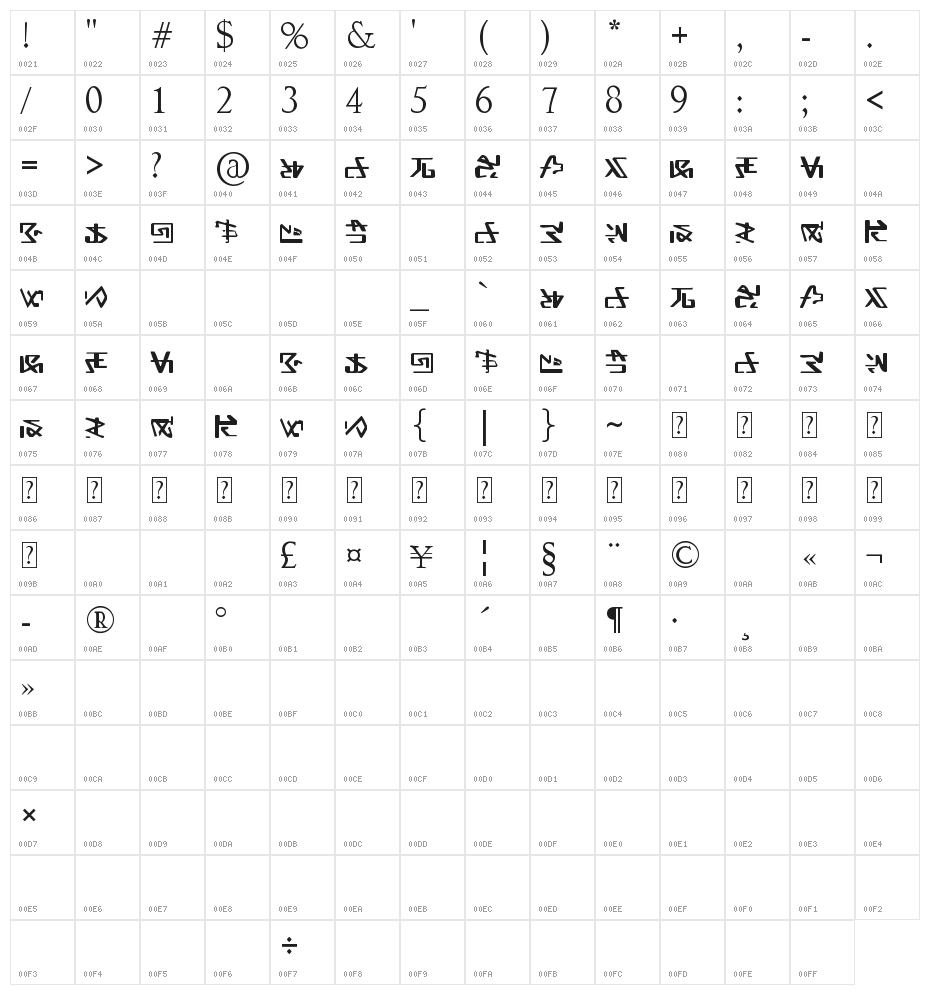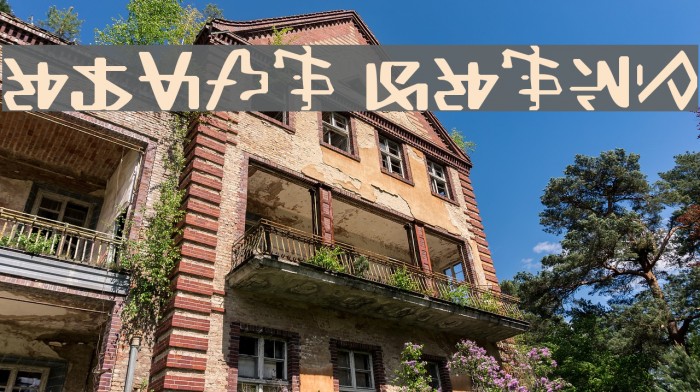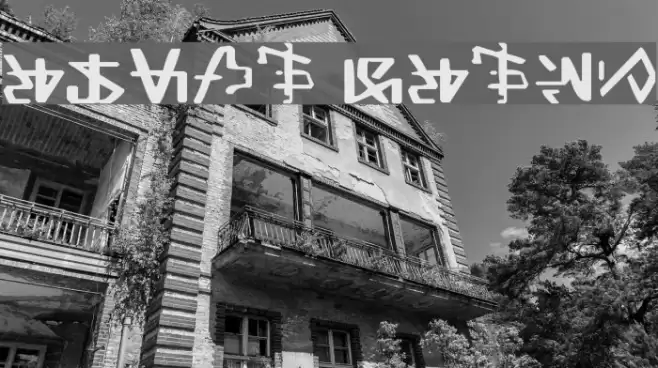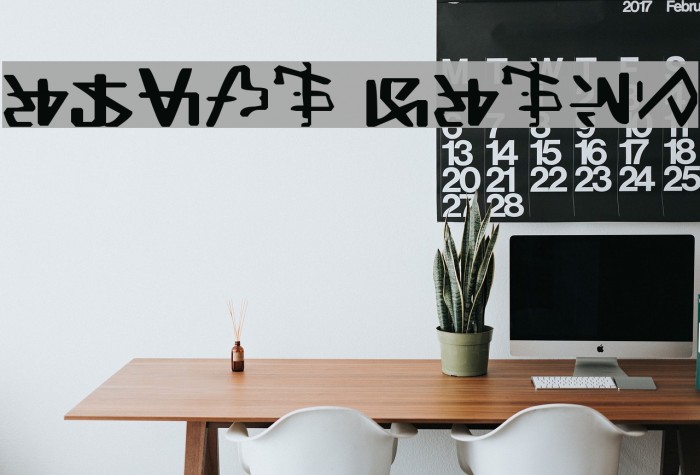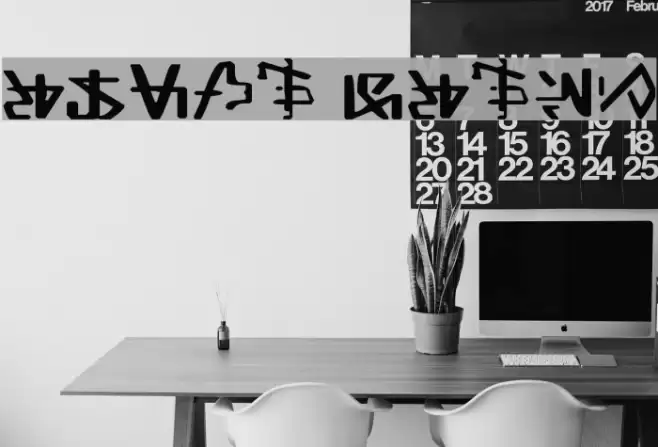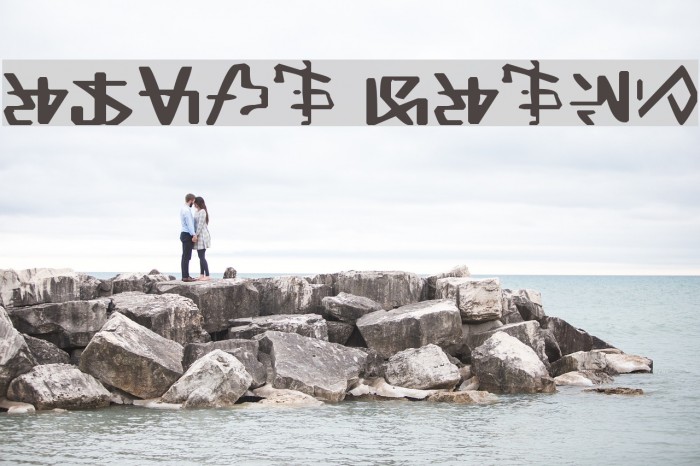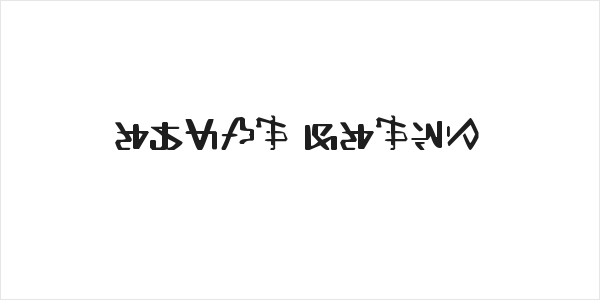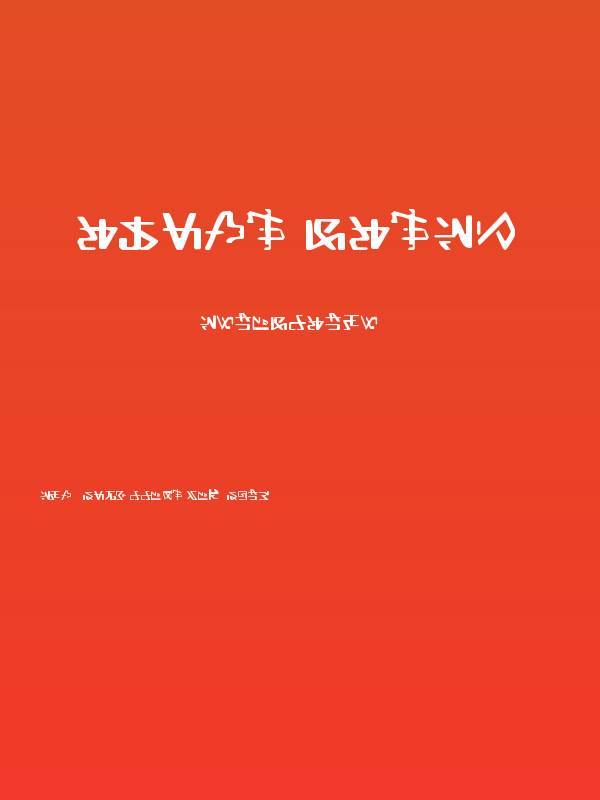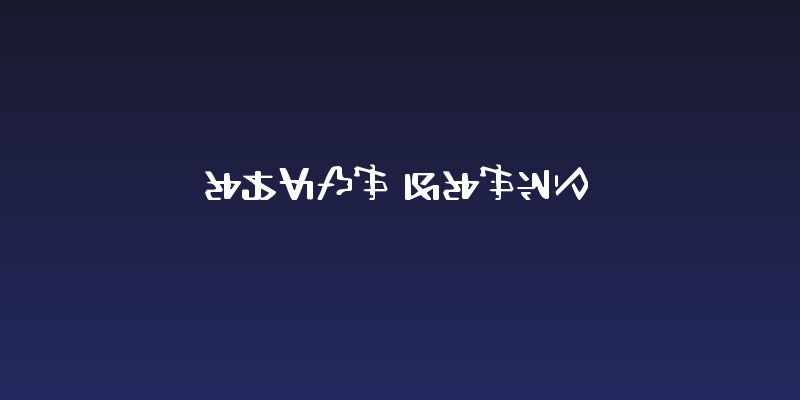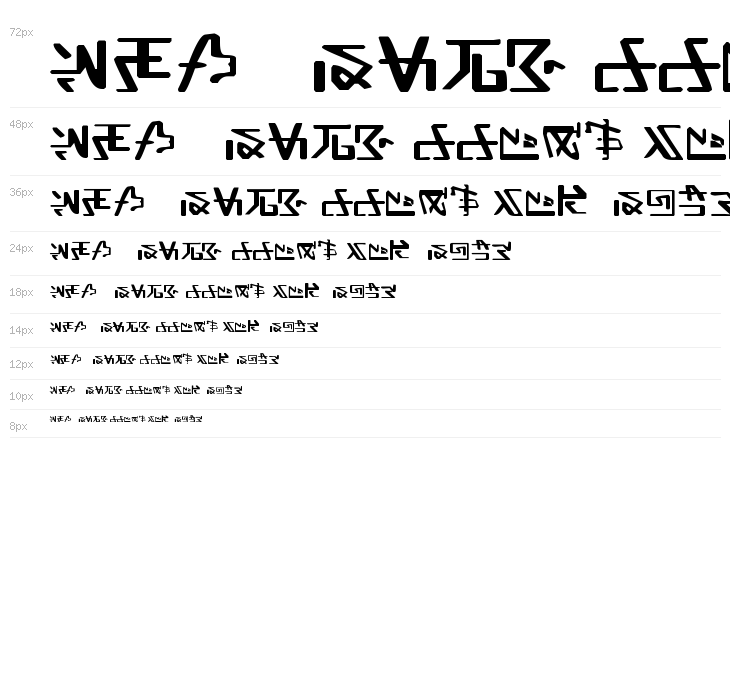
Alien Gantz Font
Alien Gantz Description
This font presents a unique and futuristic style, characterized by its alien-like glyphs that resemble a fictional script. The characters are composed of angular and geometric shapes, giving it a highly decorative and unconventional appearance. The numerals and special characters, however, are more traditional, with a serif style that contrasts with the alien script. This duality creates a striking visual impact, making it suitable for creative and avant-garde projects. The font's distinctiveness lies in its ability to merge the fantastical with the familiar, offering a versatile tool for designers looking to push boundaries.